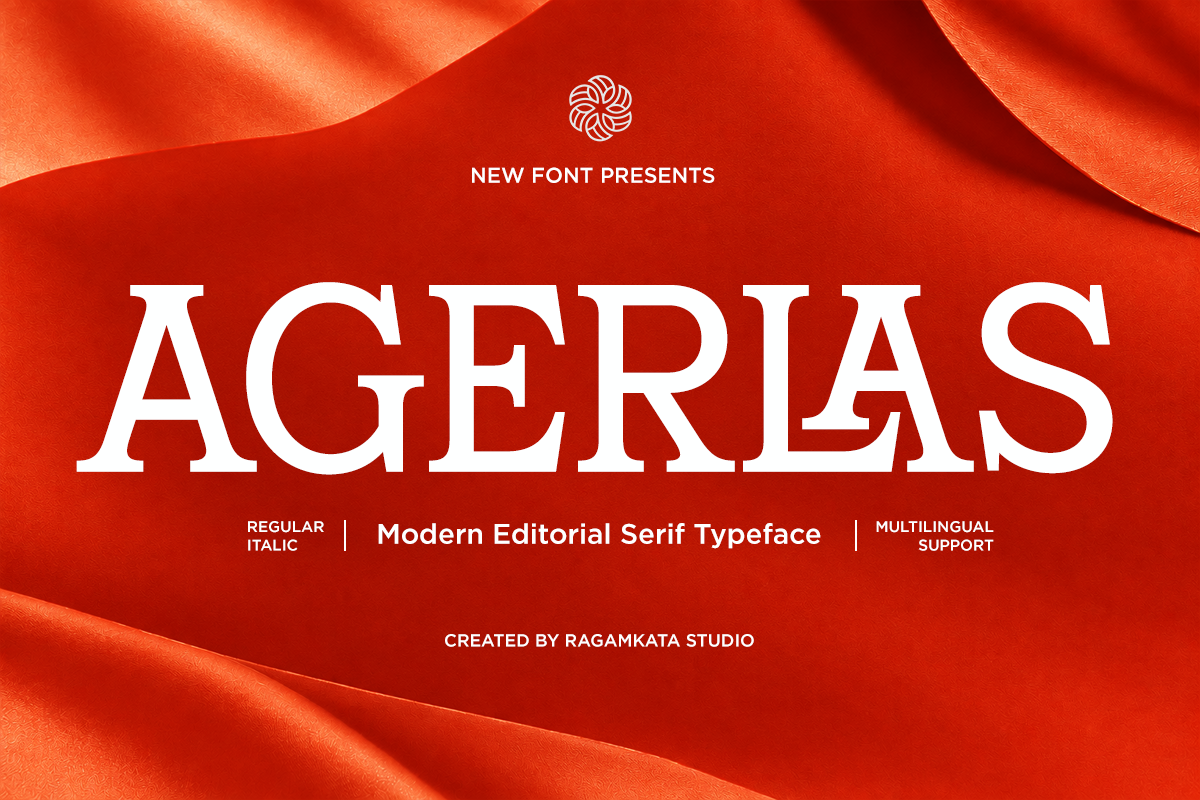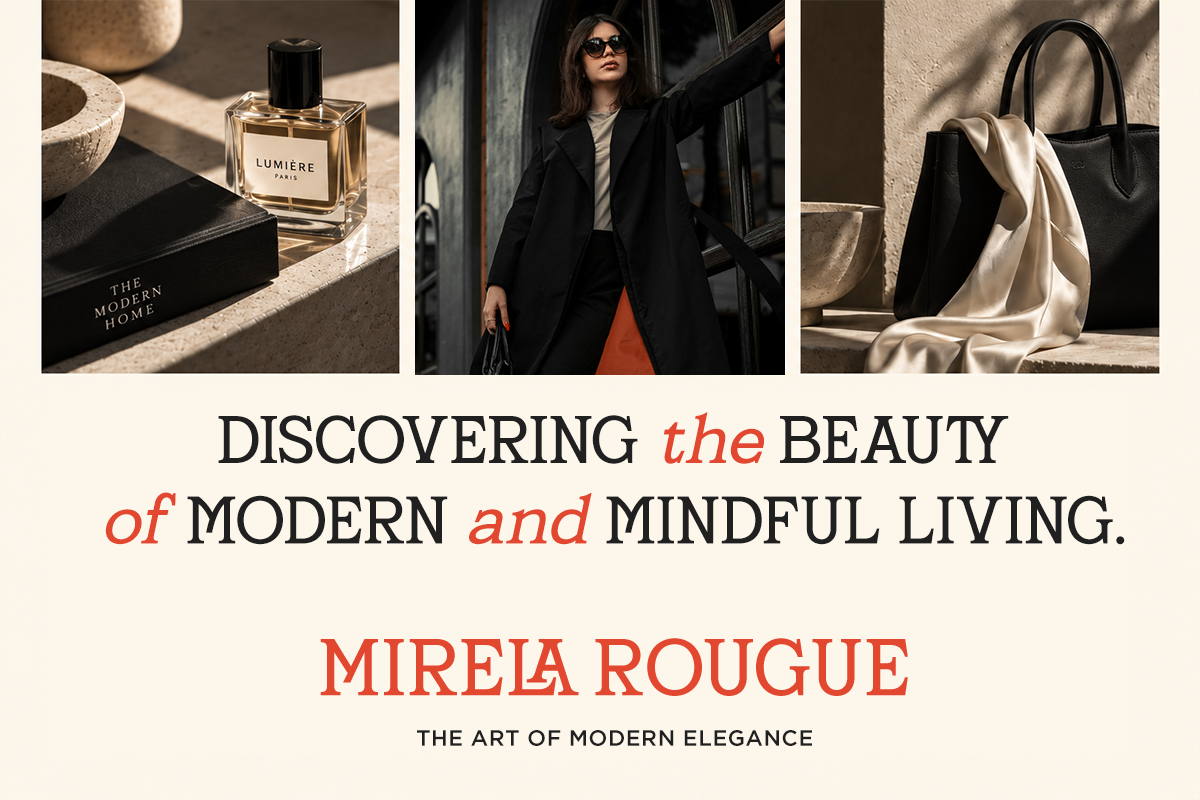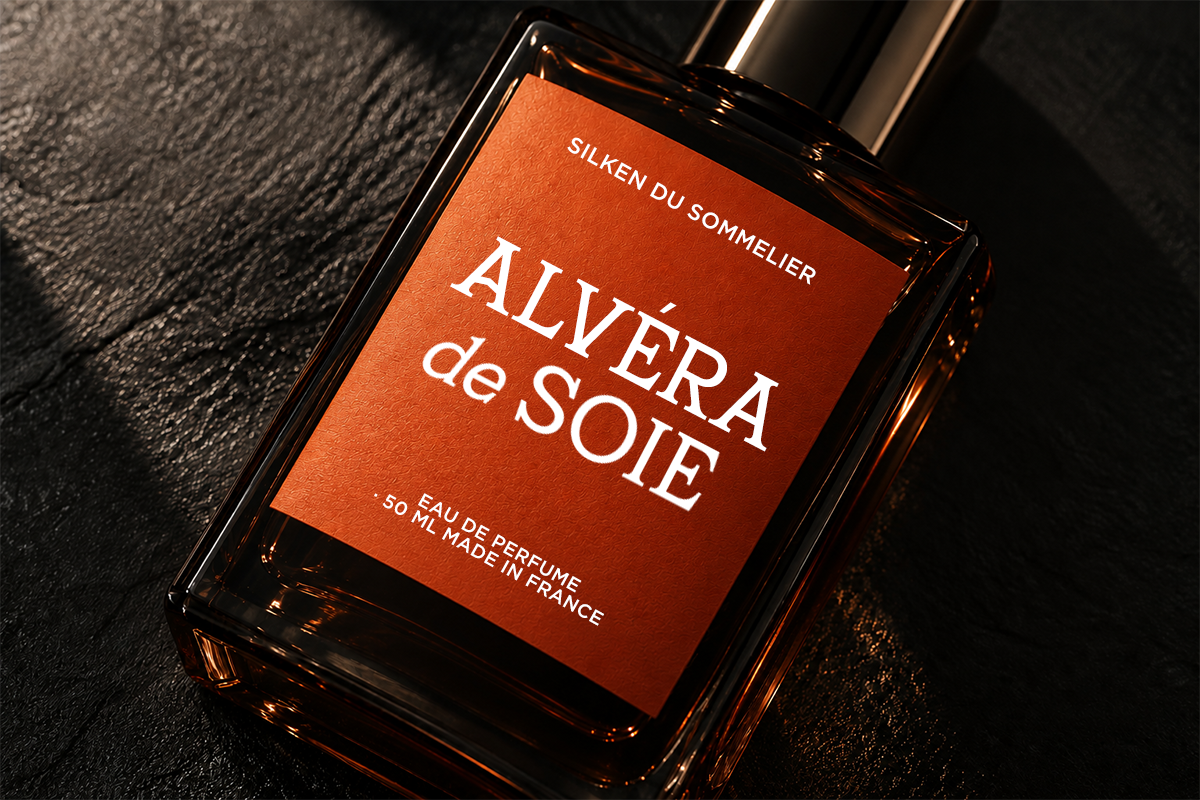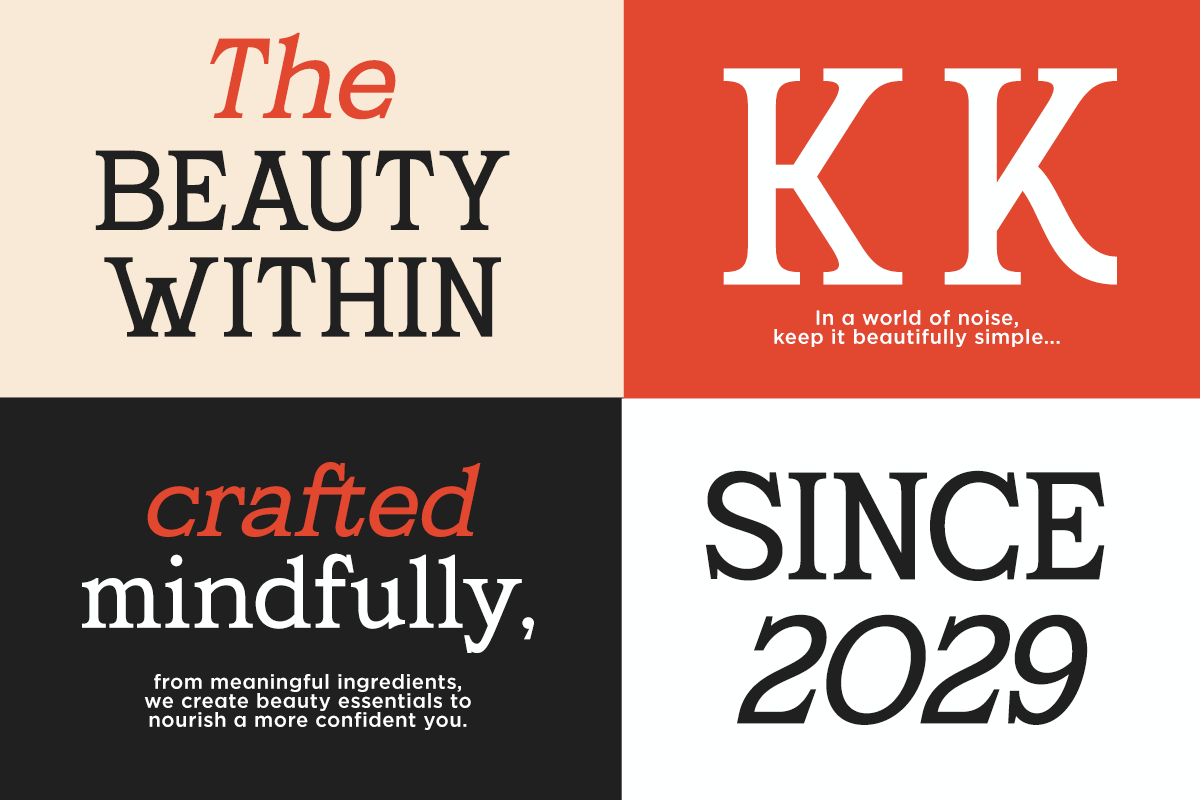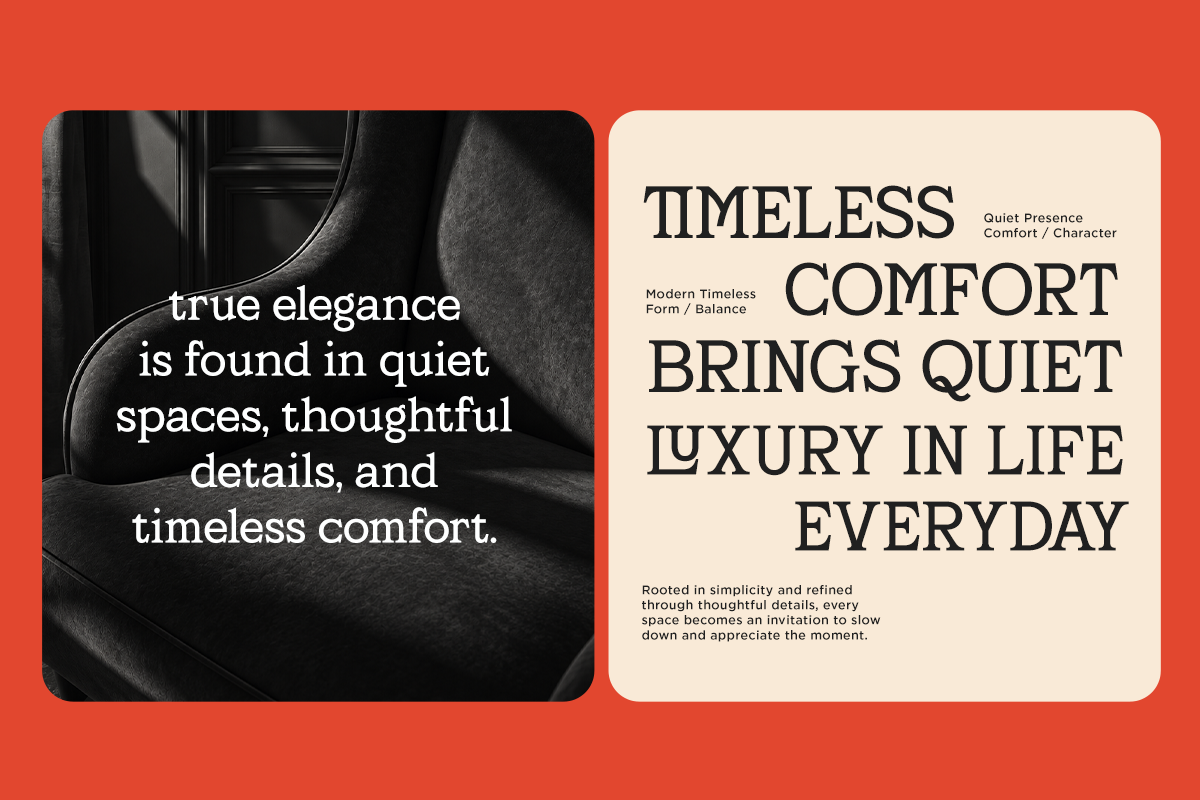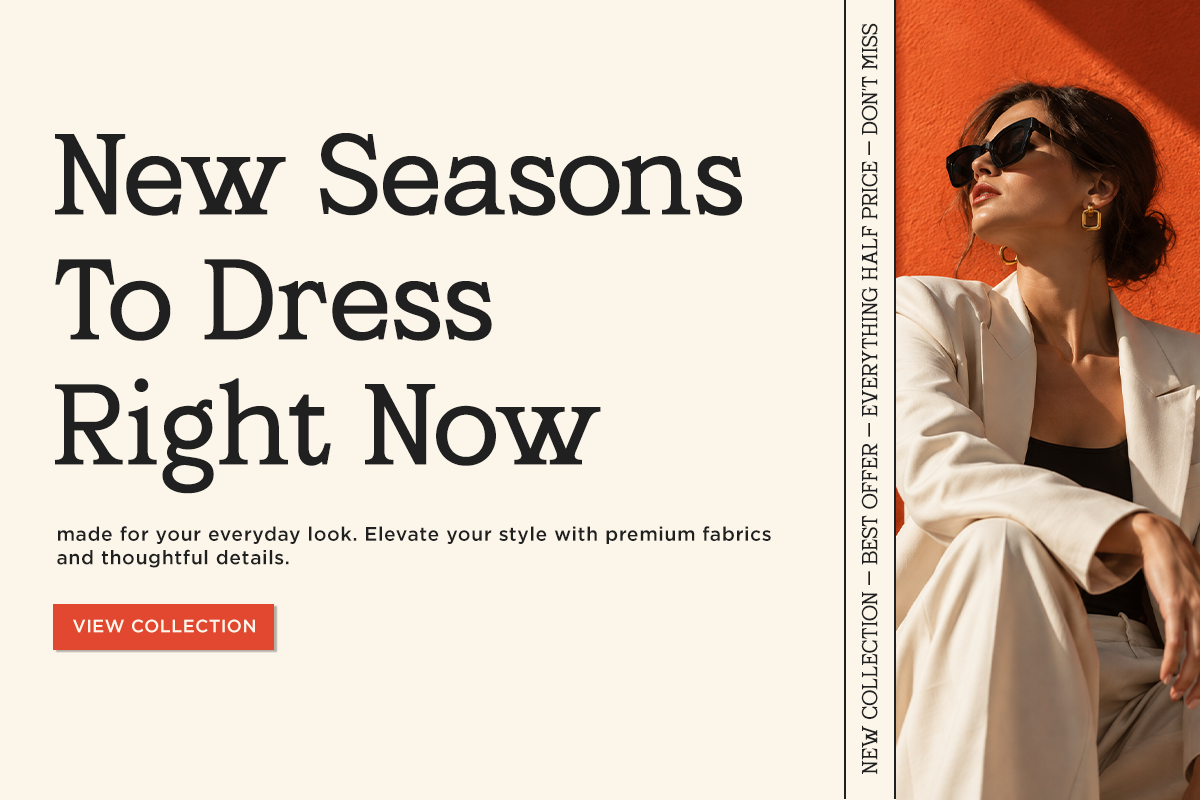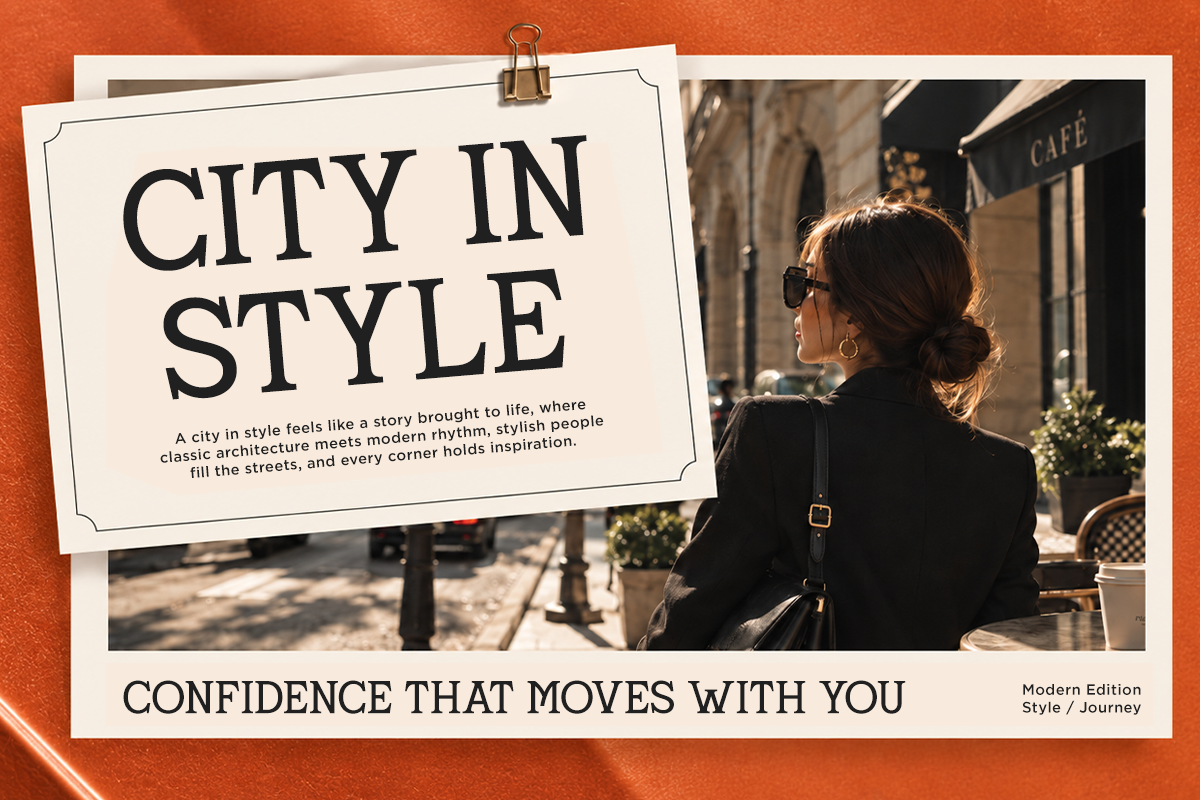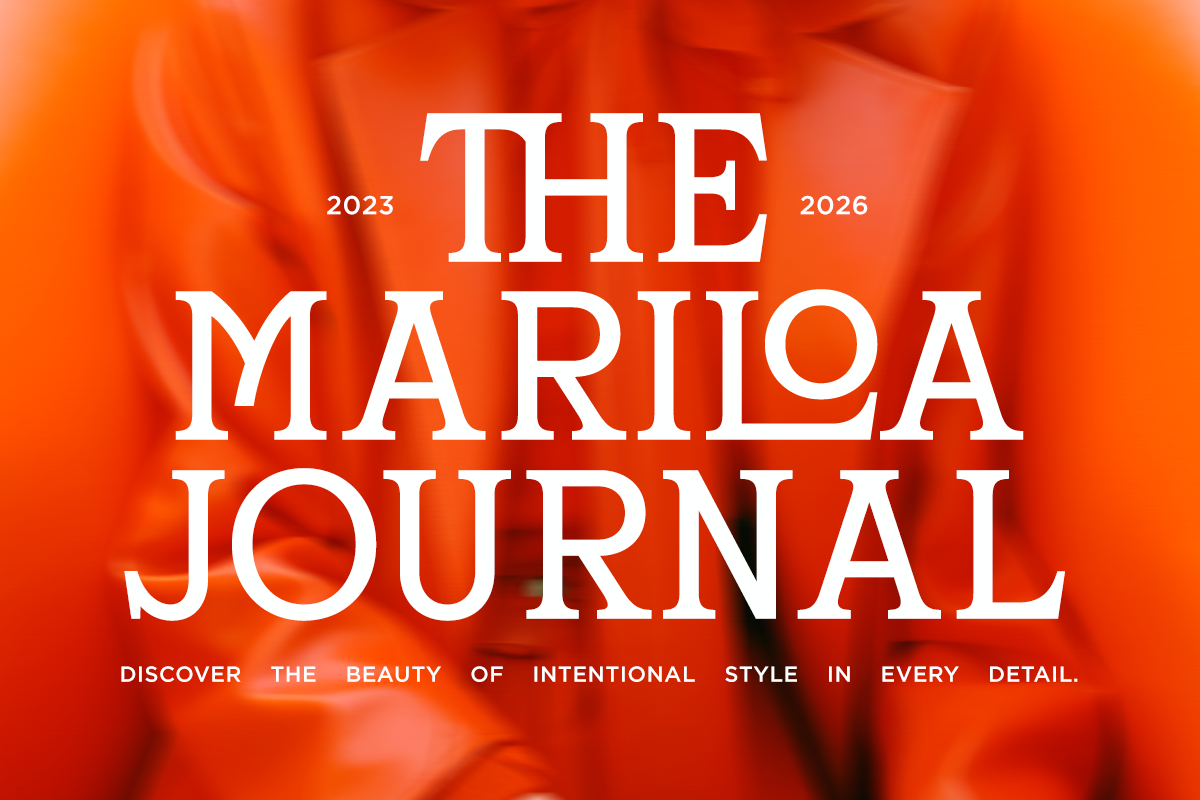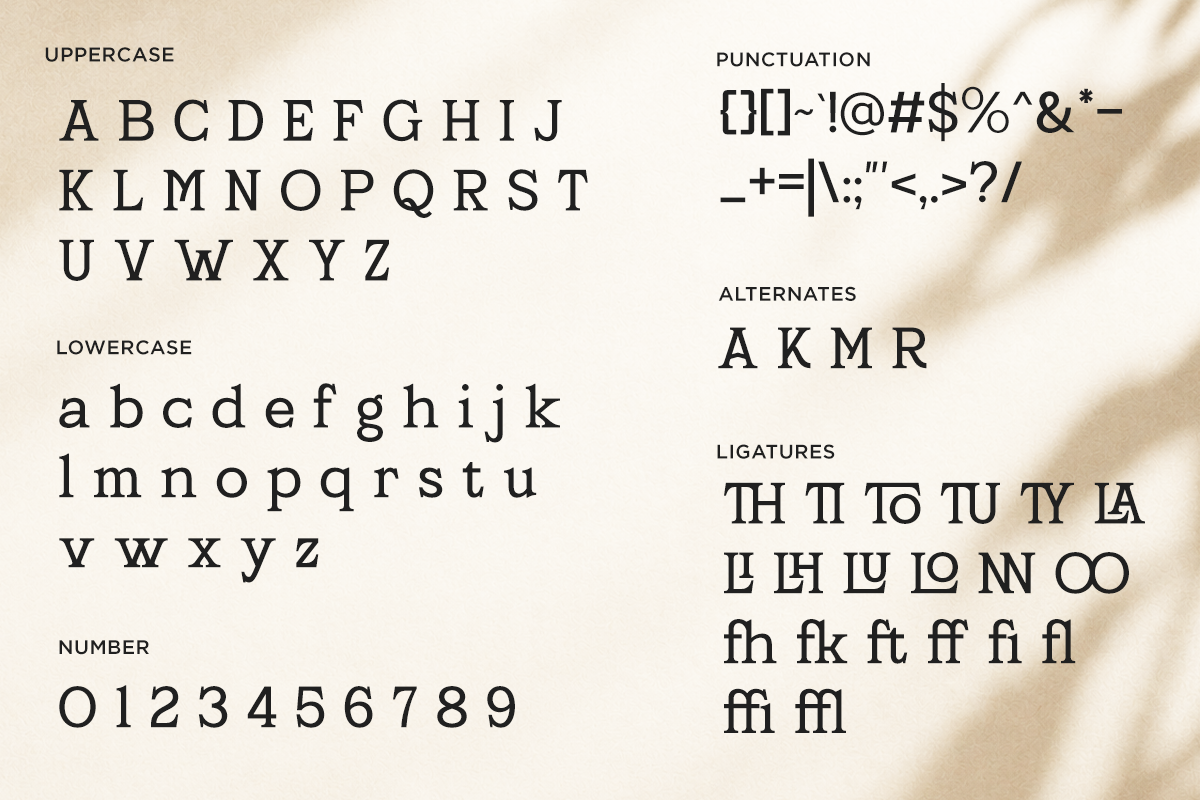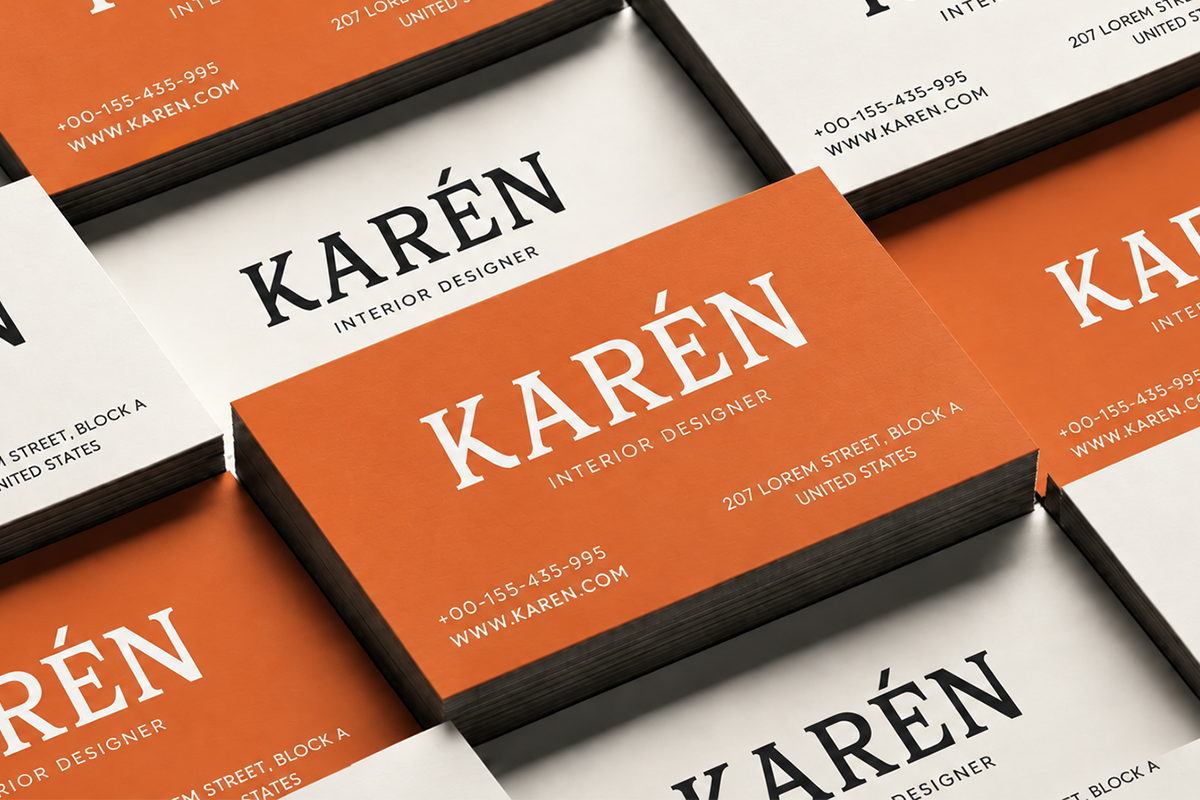
Agerlas - Stylish Modern Serif Font
Agerlas is a refined modern serif font designed to bring elegance, sophistication, and editorial character to contemporary designs. Featuring high contrast letterforms, graceful proportions, and distinctive serif details, Agerlas creates a luxurious visual presence while maintaining a clean and versatile appearance.
Perfect for fashion magazines, beauty branding, luxury logos, editorial layouts, perfume packaging, cosmetics, lifestyle brands, advertising, posters, invitations, and premium product designs. Its elegant character makes Agerlas especially suitable for headlines, brand names, magazine covers, and sophisticated visual identities.
Agerlas is a versatile choice for designers creating fashion campaigns, beauty identities, luxury packaging, editorial projects, product labels, social media graphics, wedding stationery, and premium branding materials. Its combination of classic serif elegance and modern proportions gives every composition a polished and timeless feel.
Regular and Italic
Stylistic Ligatures
Special Alternates
Number, Symbol, and Punctuation